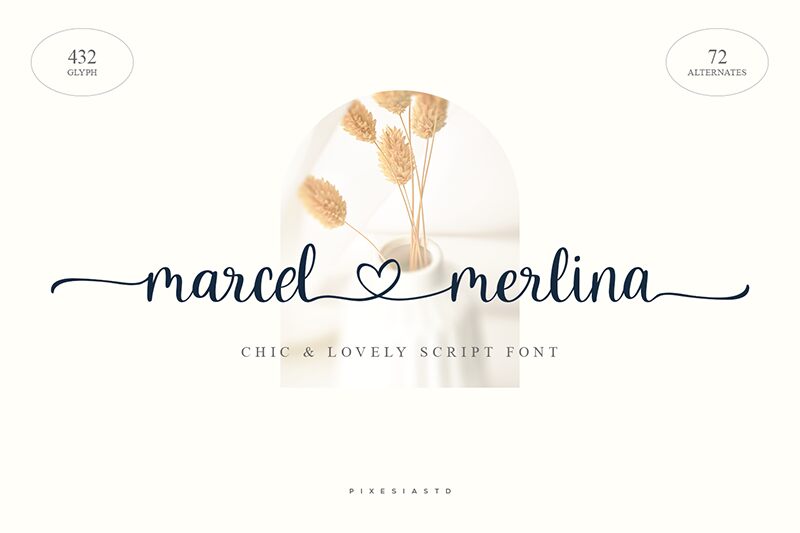
Marcel Merlina font by Pixesia Studio is a free handwritten font that blends elegance, expressiveness, and sophistication with its flowing style. The inviting look of the letters makes each composition splendid, revealing a font that speaks volumes about what’s advertised and leaves a tender mark on the viewer.
Because handwriting projects are always approachable, this tone can be used both professionally and personally for branding designs and coffee shop signs that bring in visitors while also making them feel welcome. Use Marcel Merlina for written quotes, wedding invitations and greeting cards, book titles, blogs or online platforms content (banners/advertisements), or present boxed cosmetics items with glamorous labels.